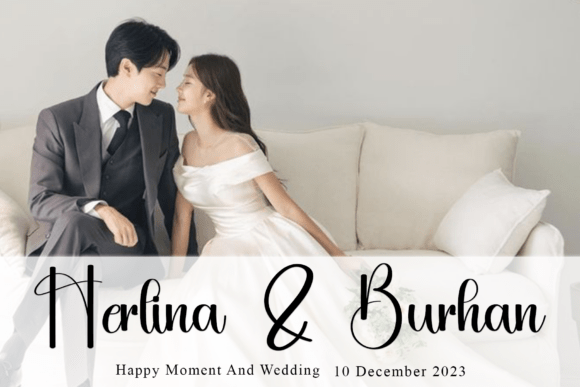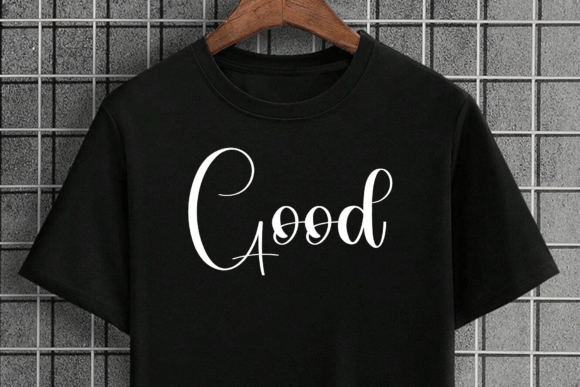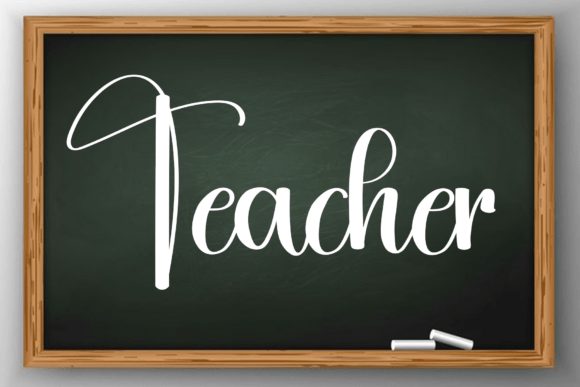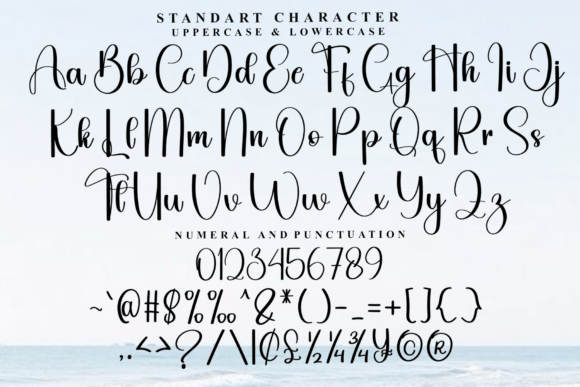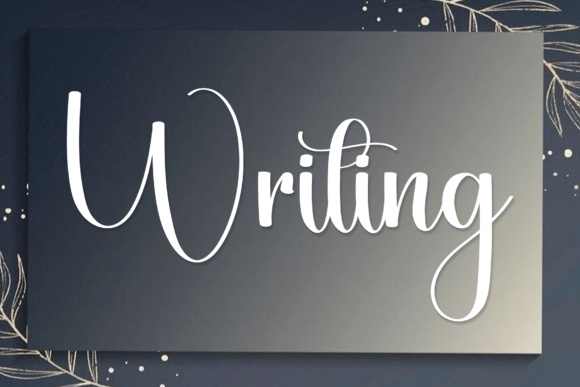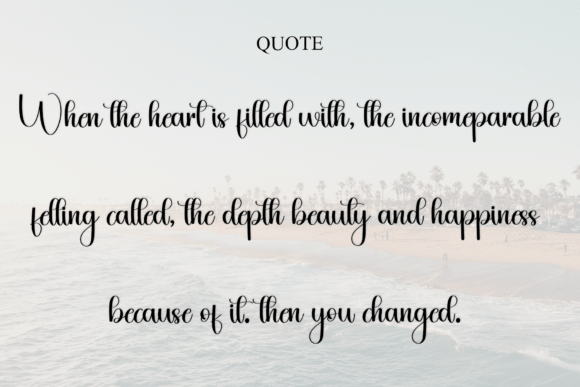
Introducing Ballpoint Font: A Unique and Versatile Design Essential
In the world of typography, a well-designed font can make all the difference in elevating your creative projects. If you’re a designer, crafter, or artist looking for a distinctive and eye-catching font, look no further than Ballpoint. This beautiful font is designed with a soft, unique touch that sets it apart from more traditional fonts. Its distinctive strokes give it a special character, making it both meaningful and versatile for future use.
The Characteristics of Ballpoint Font
Ballpoint Font boasts a range of characteristics that make it perfect for design projects, crafts, and other creative works. One of its standout features is its unique and soft design, which gives it a natural and approachable feel. The font’s distinctive strokes add a touch of personality to any design, making it ideal for projects where you want to make a statement.
Another key benefit of Ballpoint Font is its versatility. With a wide range of characters, you can use it to create everything from elegant headings to playful text. Whether you’re designing a logo, creating a craft project, or working on a larger design endeavor, Ballpoint Font is the perfect choice.
In addition to its technical compatibility, Ballpoint Font is also incredibly versatile in terms of its design applications. You can use it to create everything from business cards and brochures to craft projects and digital art. Its natural, approachable feel makes it perfect for designs that need to connect with a wide range of audiences.
Why Choose Ballpoint Font?
- Unique Design: Ballpoint Font’s soft, unique touch sets it apart from more traditional fonts.
- Versatility: With a wide range of characters, you can use Ballpoint Font for everything from elegant headings to playful text.
- Natural Feel: The font’s natural, approachable feel makes it perfect for designs that need to connect with a wide range of audiences.
Using Ballpoint Font in Your Design Projects
- Logo Design: Use Ballpoint Font to create a unique and eye-catching logo for your business or brand.
- Craft Projects: Add a personal touch to your craft projects with Ballpoint Font’s playful and approachable design.
- Digital Art: Use Ballpoint Font to add text and personality to your digital art projects.
- Marketing Materials: Use Ballpoint Font to create eye-catching marketing materials, such as brochures, flyers, and business cards.